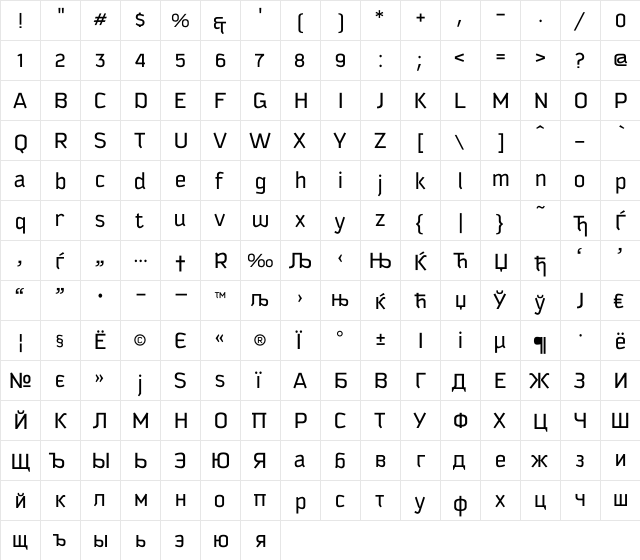
Kautiva Cyrillic Book Regular
Design Context for Kautiva Cyrillic Book Typeface
Kautiva Cyrillic Book takes a measured approach to typography — its balanced proportions and neutral character make it a reliable workhorse for both digital and print work.